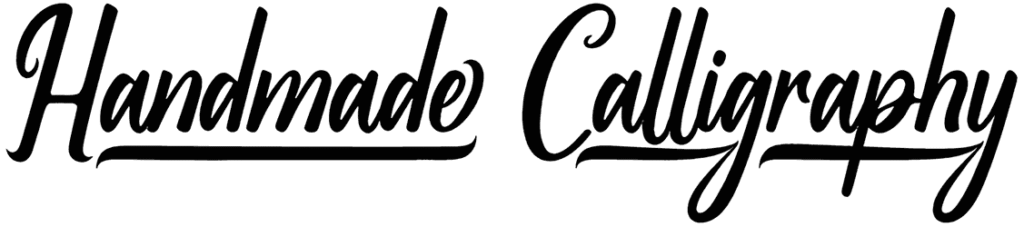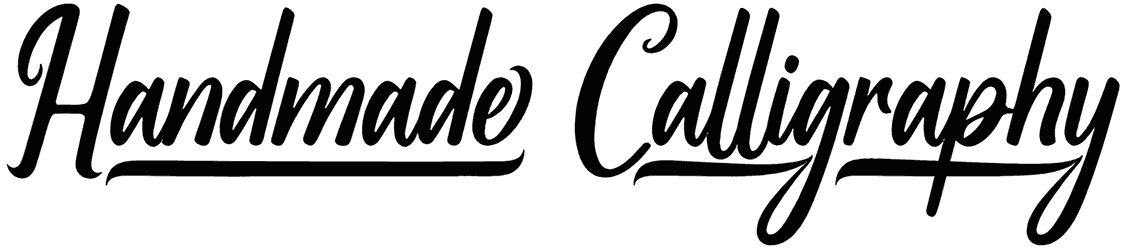
Handmade Calligraphy Font
It makes no sense to keep looking for another love font when you already have Handmade Calligraphy at your service. Not only does it arrange your letters so tastefully, but it also makes sure of the presence of elegance in your lettering.
So if something is stopping you from skipping this calligraphy font and moving on to the next option, listen to it. You’re going to need it in your birthday cake, website banners, New Year’s Eve posters, and more.